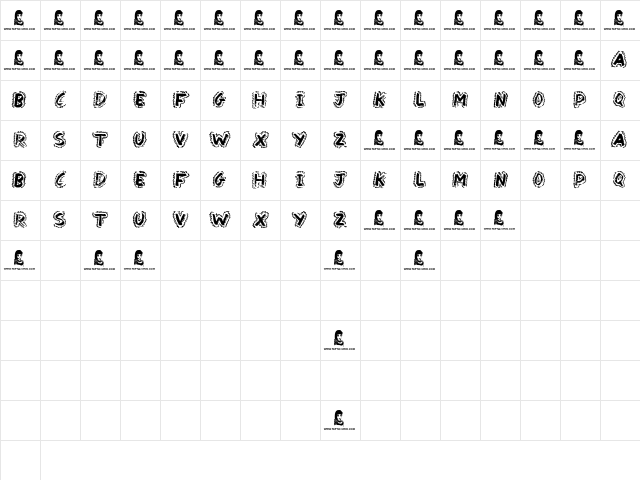
Yak Shamash Regular Free Font
Yak Shamash Regular
Complete Yak Shamash Regular glyph index. Displaying only characters natively supported by Yak Shamash Regular font.
Design Context for Yak Shamash
Yak Shamash is a composed and adaptable typeface that performs quietly and consistently across a wide range of design contexts.